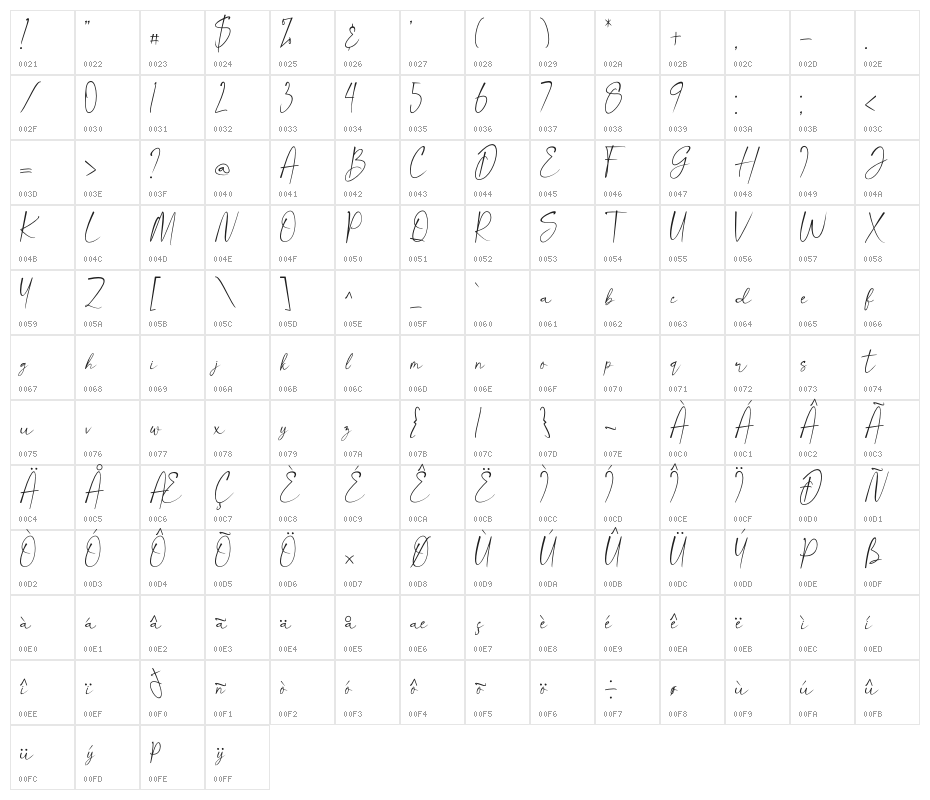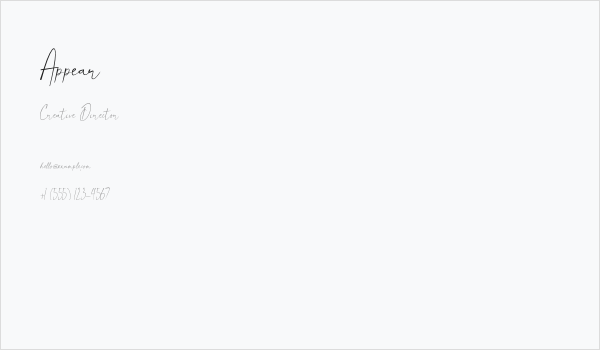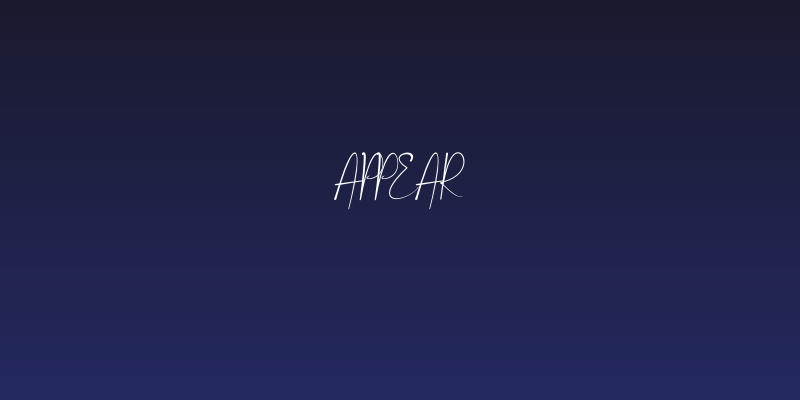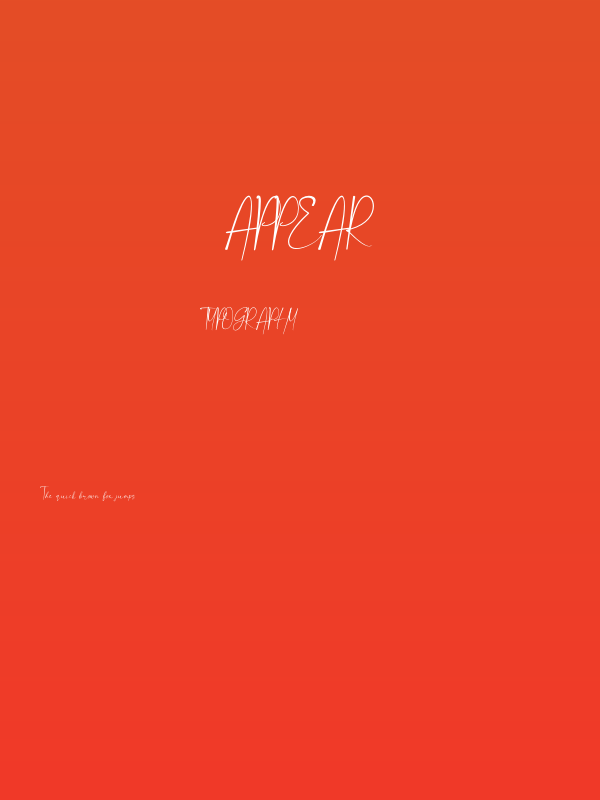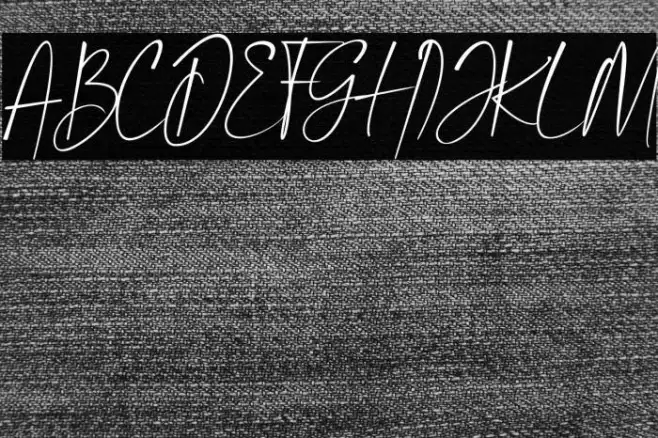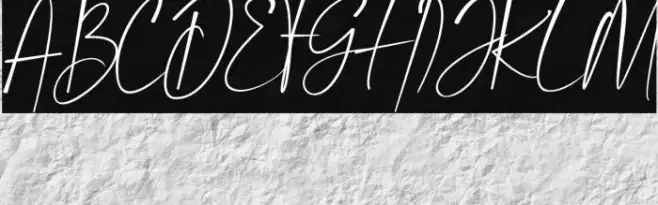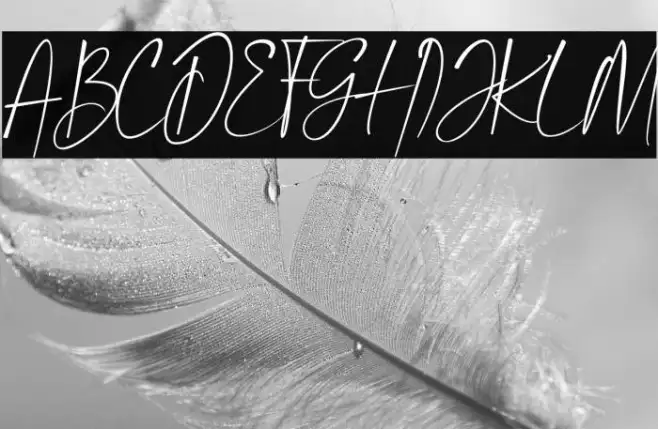
Appear Font
Appear Description
This font features an elegant and flowing script style, characterized by its smooth, cursive strokes and a sense of fluidity. The uppercase letters are tall and slender, with a graceful, sweeping motion that adds a touch of sophistication. The lowercase letters maintain a consistent flow, connecting seamlessly to create a harmonious appearance. Numbers and special characters follow the same cursive style, ensuring a cohesive look throughout. The overall design exudes a sense of elegance and is perfect for projects that require a personal, handwritten touch.
| Overall Style | Elegant, Handwritten |
| Use Case | Logos, Invitations, Personal Correspondence |
| Proposed Projects | Ideal for wedding invitations, greeting cards, branding, and elegant stationery. |